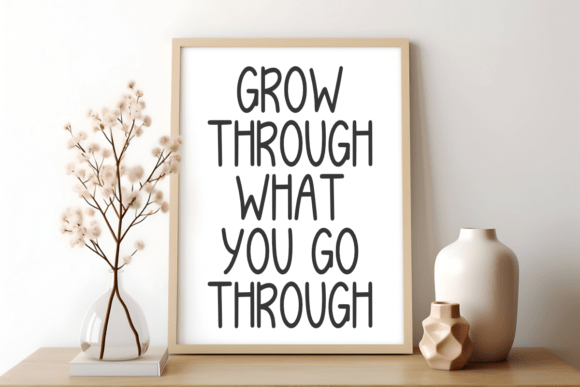
Introducing Natale Display Font: The Perfect Holiday Companion
Are you looking for a font that captures the essence of the holiday season? Do you want to add a touch of warmth and personality to your designs? Look no further than Natale Display Font, a charming handwritten font that’s perfect for holiday-themed designs, greeting cards, kids’ projects, and cozy branding.
What is Natale Display Font?
Natale Display is a beautiful, handwritten font with a clean, tall profile that feels festive yet versatile. Its narrow, playful letterforms and slight quirks make it perfect for adding a touch of whimsy to any design. With a whimsical but legible style, Natale Display brings warmth and personality to any project.
Key Features of Natale Display Font
- Clean and Tall Profile: Natale Display has a clean and tall profile that gives it a sense of elegance and sophistication.
- Narrow and Playful Letterforms: The font’s narrow, playful letterforms make it perfect for creating eye-catching headlines and titles.
- Slight Quirks: The font’s slight quirks add a touch of whimsy and personality to any design.
- Whimsical but Legible: Natale Display has a whimsical style that’s still legible and easy to read.
Use Cases for Natale Display Font
Natale Display is a versatile font that can be used for a variety of projects, including:
- Holiday-Themed Designs: The font’s festive feel makes it perfect for holiday-themed designs, such as Christmas cards, Halloween invitations, and Thanksgiving flyers.
- Greeting Cards: Natale Display is a great choice for greeting cards, adding a touch of warmth and personality to any message.
- Kids’ Projects: The font’s playful style makes it perfect for kids’ projects, such as posters, flyers, and worksheets.
- Cozy Branding: Natale Display can be used to create cozy and inviting branding for businesses, such as coffee shops, bakeries, and boutiques.
Benefits of Using Natale Display Font
Using Natale Display Font can bring a number of benefits to your designs, including:
- Unique and Eye-Catching: The font’s unique and eye-catching style will help your designs stand out from the crowd.
- Emotional Connection: The font’s warm and playful style can help create an emotional connection with your audience.
- Versatile: Natale Display can be used for a variety of projects, from holiday-themed designs to cozy branding.
- Easy to Read: Despite its whimsical style, Natale Display is still easy to read and understand.
Tips for Using Natale Display Font
Here are a few tips for using Natale Display Font effectively:
- Use it for Headlines: Natale Display is perfect for headlines and titles, where its playful style can really shine.
- Pair it with a Serif Font: Pairing Natale Display with a serif font can create a nice contrast and add visual interest to your design.
- Experiment with Colors: Natale Display looks great in a variety of colors, so don’t be afraid to experiment and find the perfect hue for your design.
- Use it for Kids’ Projects: Natale Display is a great choice for kids’ projects, such as posters, flyers, and worksheets.
Natale Display Font is a charming handwritten font that’s perfect for holiday-themed designs, greeting cards, kids’ projects, and cozy branding. Its clean, tall profile and playful letterforms make it a versatile font that can add a touch of warmth and personality to any design. With its whimsical but legible style, Natale Display is sure to become a favorite font for designers and crafty enthusiasts alike.